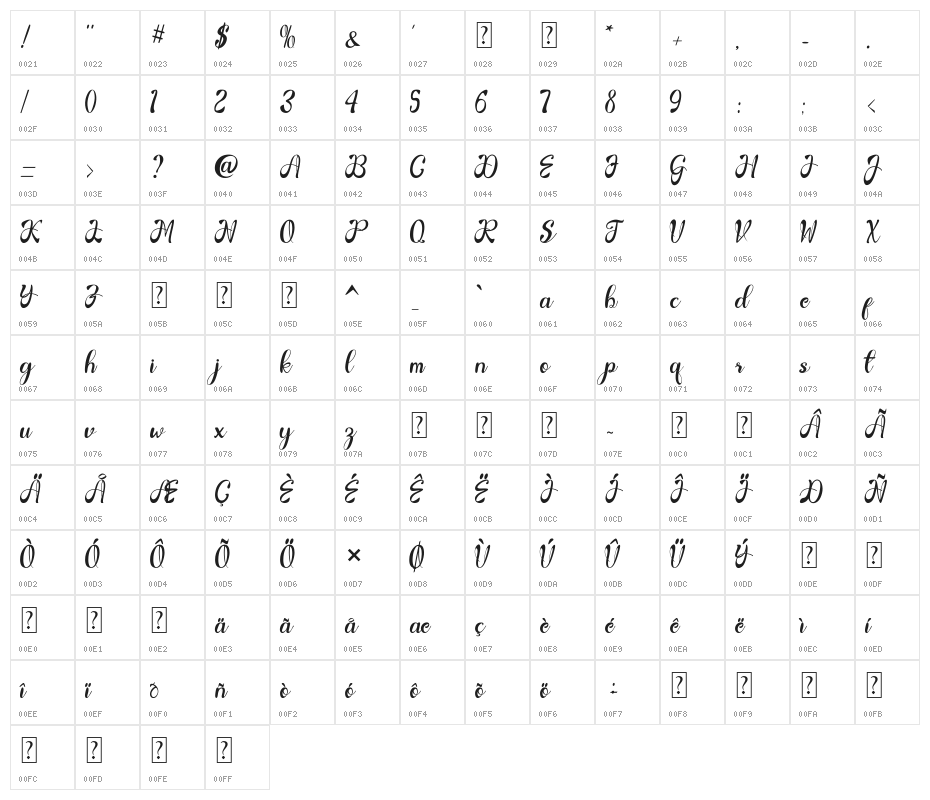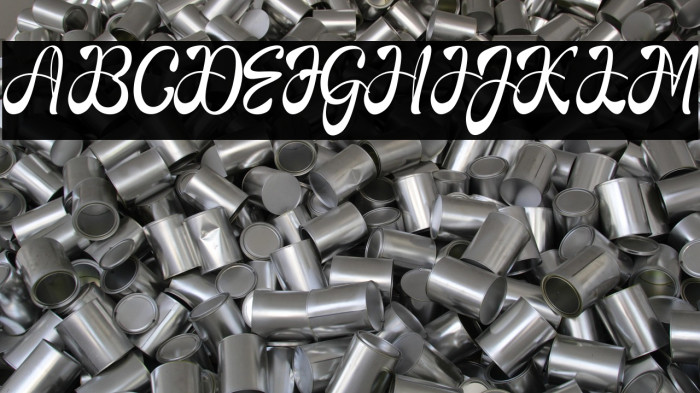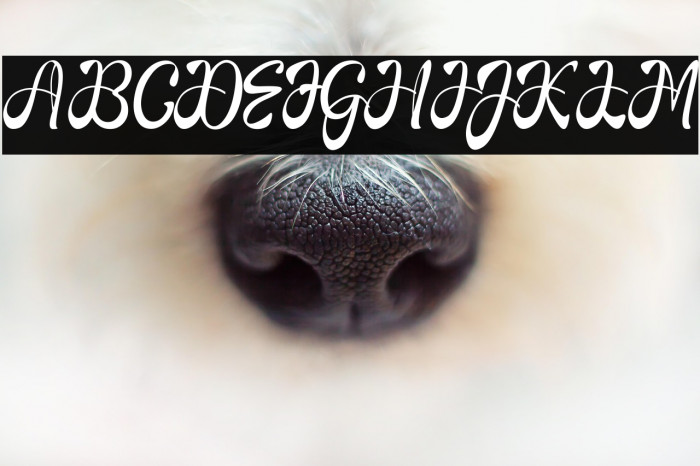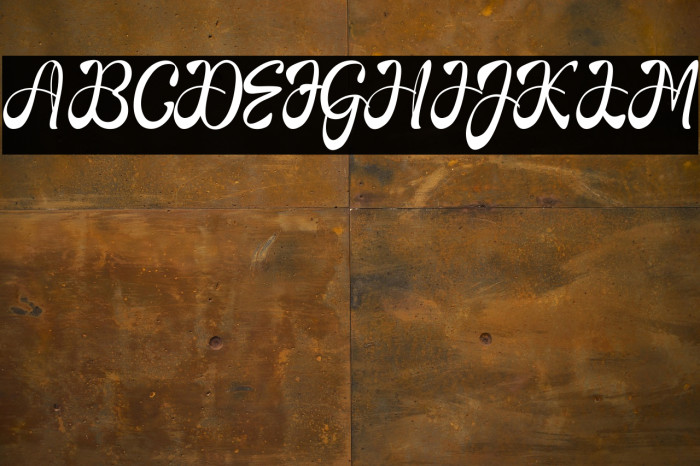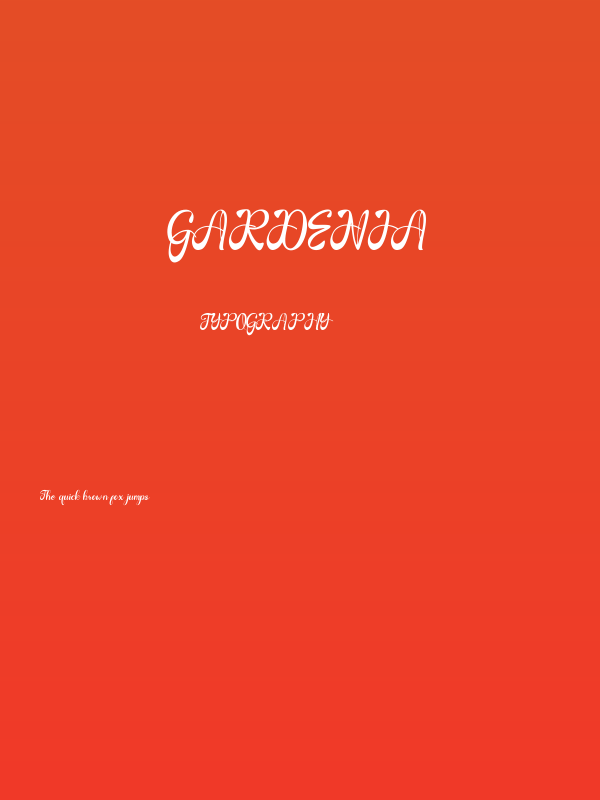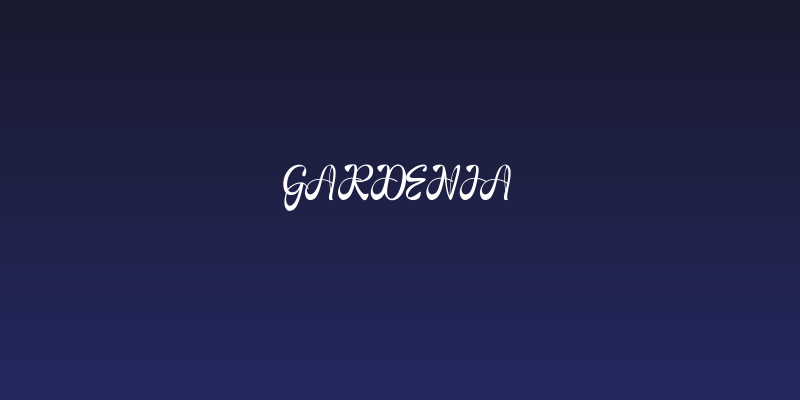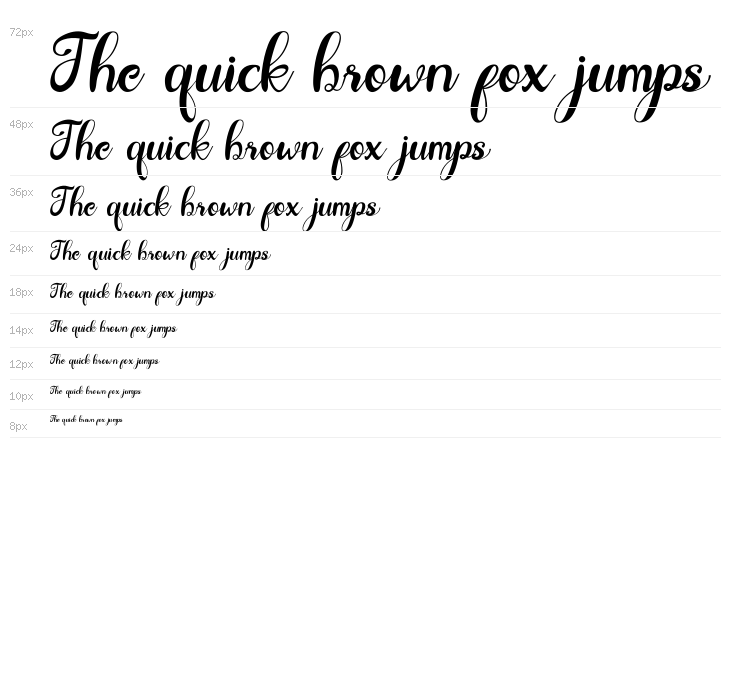
Gardenia Font
Gardenia Description
This font features an elegant and flowing script style, characterized by its smooth, cursive letterforms that mimic the fluidity of handwriting. The uppercase letters are bold and ornate, with intricate loops and swirls that add a touch of sophistication. The lowercase letters maintain a consistent style, offering a seamless transition between characters. The numerals are equally stylized, ensuring a cohesive look throughout. Special characters are designed with the same attention to detail, making them suitable for decorative purposes. This font exudes a sense of grace and refinement, perfect for projects that require a personal or artistic touch.